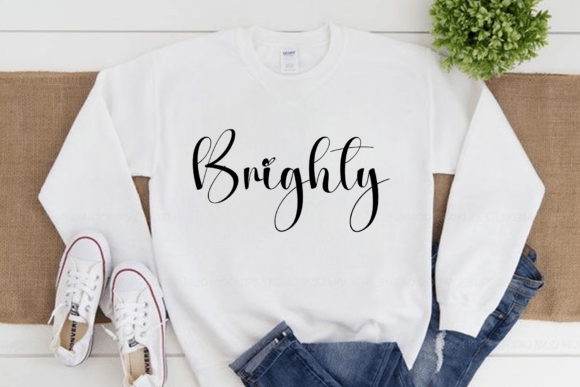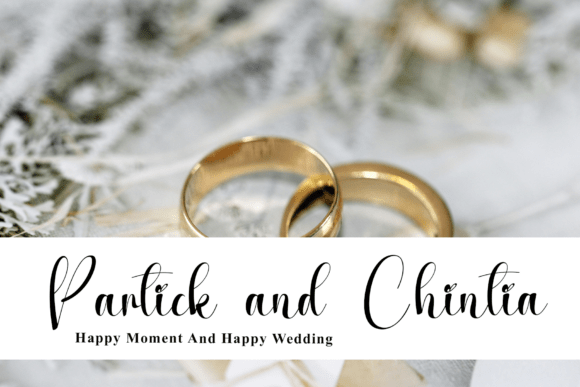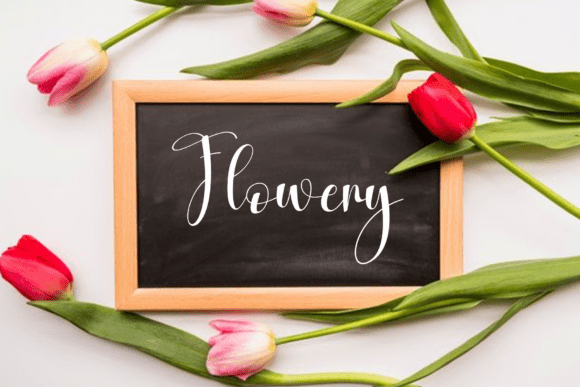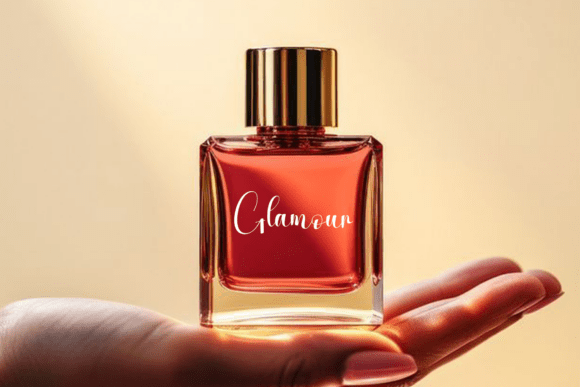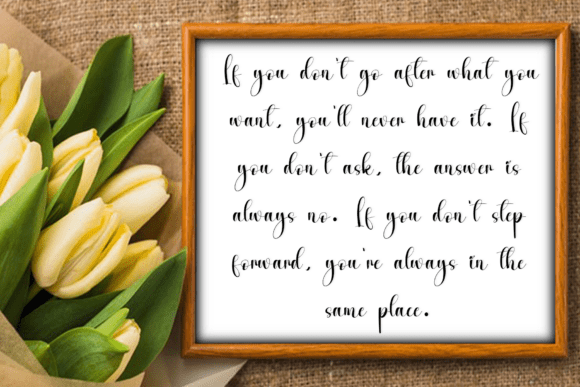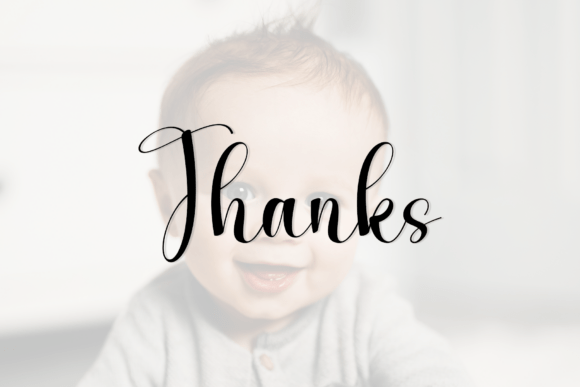
Baby Boho Font: Elevate Your Designs with Elegance and Sophistication
In the world of typography, fonts play a crucial role in conveying the tone and personality of a design. For those seeking a modern, sophisticated typeface, Baby Boho Font is an excellent choice. This elegant and fluid handwritten script font has captured the hearts of designers and crafters alike, and for good reason. In this article, we’ll explore the features and benefits of Baby Boho Font, and how it can elevate your designs to new heights.
The Essence of Baby Boho Font
Baby Boho Font is a luxurious handwritten script font that exudes elegance and sophistication. Its fluid strokes and modern feel make it perfect for a variety of design applications, from luxury wedding stationery to high-end editorial signatures. The font’s unique charm lies in its ability to convey a sense of refinement and poise, making it an excellent choice for designers seeking to create a lasting impression.
Perfect for Luxury Wedding Stationery and Intimate Event Branding
When it comes to wedding stationery and event branding, the font used can make all the difference. Baby Boho Font is a perfect choice for luxury weddings and intimate events, as it adds a touch of sophistication and glamour to any design. Whether you’re creating invitations, save-the-date cards, or wedding menus, this font is sure to impress. Its elegant feel and modern aesthetic make it an excellent fit for high-end events, and its versatility ensures that it can be used in a variety of design contexts.
Elevate Your Editorial Signatures with Baby Boho Font
In the world of editorial design, fonts play a crucial role in establishing a brand’s voice and personality. Baby Boho Font is an excellent choice for high-end editorial signatures, as it adds a touch of sophistication and elegance to any article or publication. Its modern feel and fluid strokes make it perfect for designers seeking to create a lasting impression, and its versatility ensures that it can be used in a variety of design contexts.
Sophisticated Lifestyle Photography Overlays
In the world of lifestyle photography, overlays can add an extra layer of depth and sophistication to any image. Baby Boho Font is an excellent choice for lifestyle photography overlays, as it adds a touch of elegance and refinement to any photo. Whether you’re creating social media graphics, blog posts, or website headers, this font is sure to impress. Its modern feel and fluid strokes make it perfect for designers seeking to create a lasting impression, and its versatility ensures that it can be used in a variety of design contexts.
Why Designers and Crafters Love Baby Boho Font
So, why do designers and crafters love Baby Boho Font? For starters, its elegant and fluid handwritten script font is perfect for creating sophisticated designs that stand out from the crowd. Additionally, its versatility ensures that it can be used in a variety of design contexts, from luxury wedding stationery to high-end editorial signatures. The font’s modern feel and unique charm also make it an excellent choice for designers seeking to create a lasting impression.
Tips for Using Baby Boho Font in Your Designs
Here are a few tips for using Baby Boho Font in your designs:
- Use it sparingly: Baby Boho Font is a statement font, so use it sparingly to create a lasting impression.
- Pair it with neutral colors: Baby Boho Font looks best when paired with neutral colors, such as black, white, and gray.
- Experiment with different sizes: Baby Boho Font can be used in a variety of sizes, from large headings to small body text.
- Don’t be afraid to get creative: Baby Boho Font is a versatile font, so don’t be afraid to get creative and experiment with different design contexts.
In conclusion, Baby Boho Font is an elegant and fluid handwritten script font that captures the essence of a modern, sophisticated typeface. Its unique charm and versatility make it perfect for a variety of design applications, from luxury wedding stationery to high-end editorial signatures. Whether you’re a designer or crafter, Baby Boho Font is an excellent choice for anyone seeking to create sophisticated designs that stand out from the crowd.